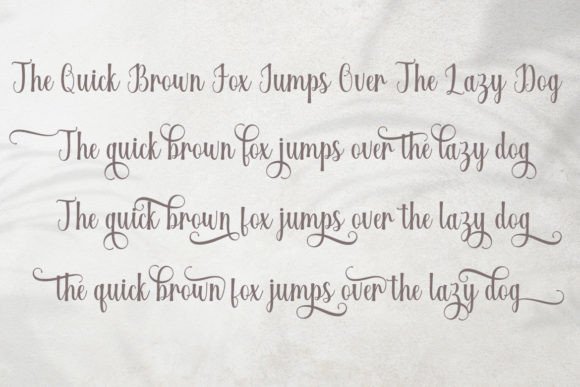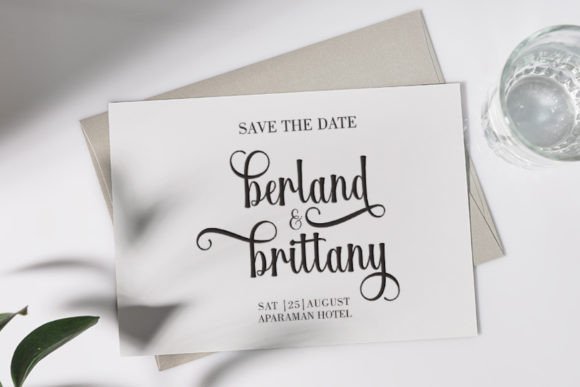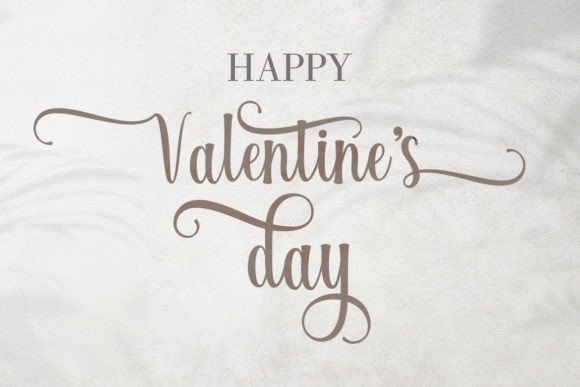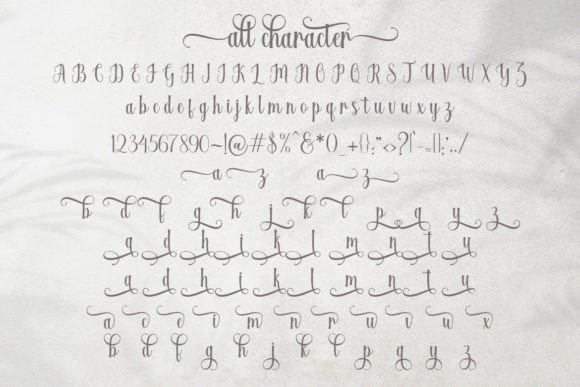
Paradise Font
Paradise Font: Dazzling Script for Elegant Designs
“Paradise” is a stunning script font that exudes style and sophistication. Its meticulous craftsmanship makes it perfect for various creative projects, elevating your designs with elegance and charm.
Key Features of Paradise Font
• Elegant Style: Paradise combines intricate details with timeless beauty.
• Versatile Use: Suitable for many projects, from branding to invitations.
• Refined Look: Adds a sense of luxury and sophistication to your typography.
Paradise’s elegant style is ideal for creating sophisticated logo designs and branding materials that convey luxury.
Invitations and Stationery
Use Paradise to design beautiful wedding invitations and special event materials that leave a lasting impression.
Poster and Print Design
The font’s dazzling look makes it perfect for creating eye-catching posters and print materials that demand attention.
Why Choose Paradise Font?
Paradise offers more than just beautiful letters. Here’s why it stands out:
• Enhances overall aesthetics with its luxurious appearance
• Creates a harmonious and captivating atmosphere in typography
• Adapts well to various design themes and projects
By using Paradise, you open up new design possibilities. Its sophisticated style works well in many contexts, from greeting cards to website headers. The font’s ability to convey elegance can inspire creative ideas and help you approach projects from a fresh perspective.
If you’re looking for a font that combines dazzling beauty with versatility, Paradise is an excellent choice. It’s perfect for adding a touch of sophistication to your work, especially for projects that need a luxurious, refined feel.
Explore how Paradise can transform your designs. From branding materials to special event stationery, this font brings a captivating and elegant quality to your creations.